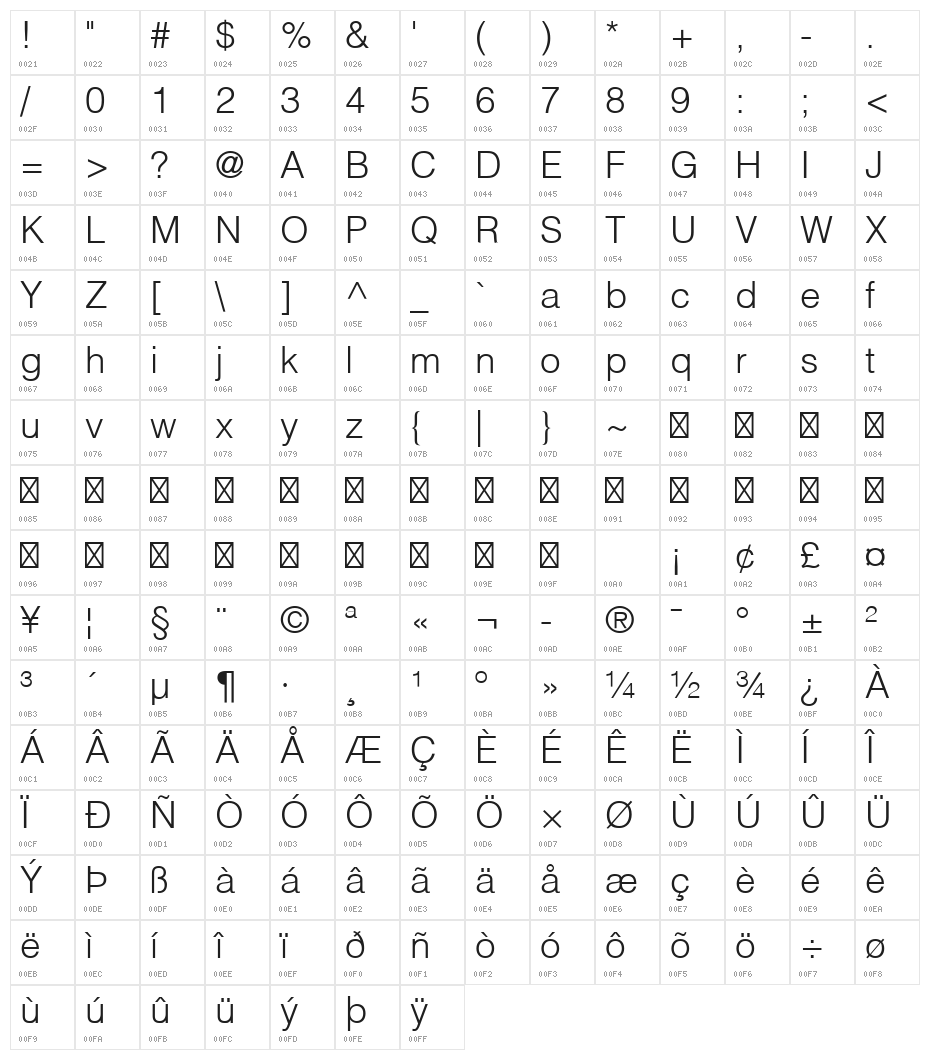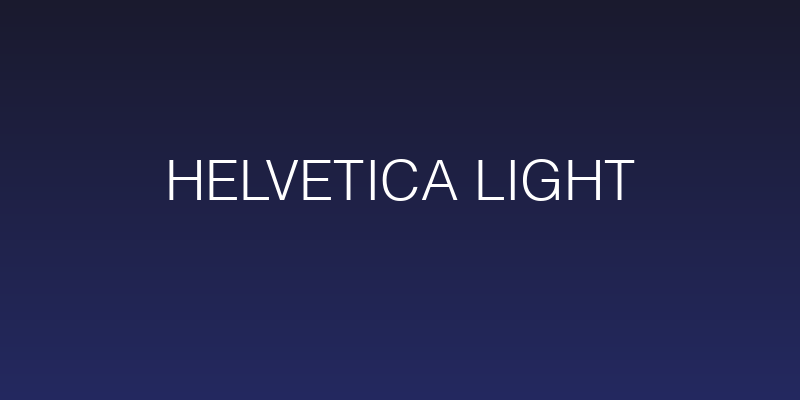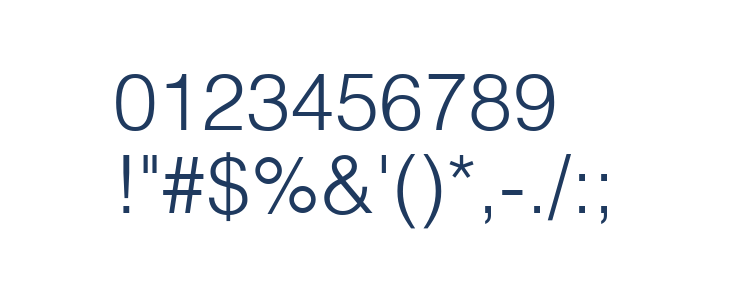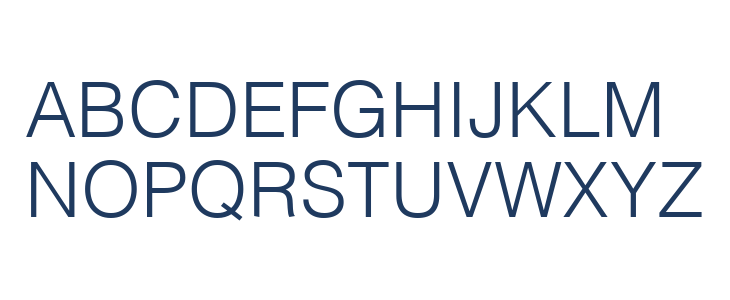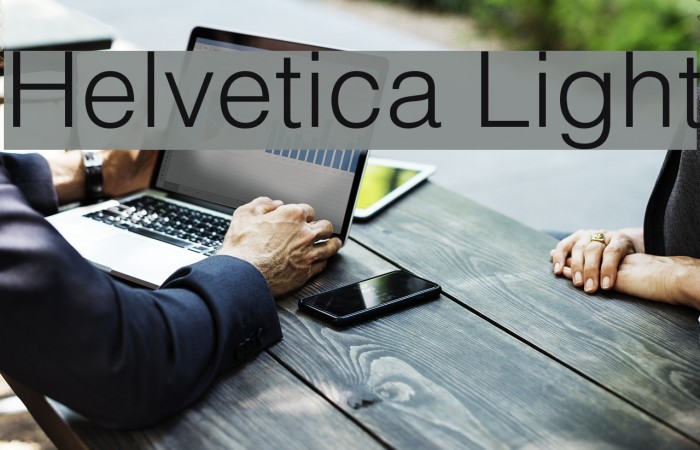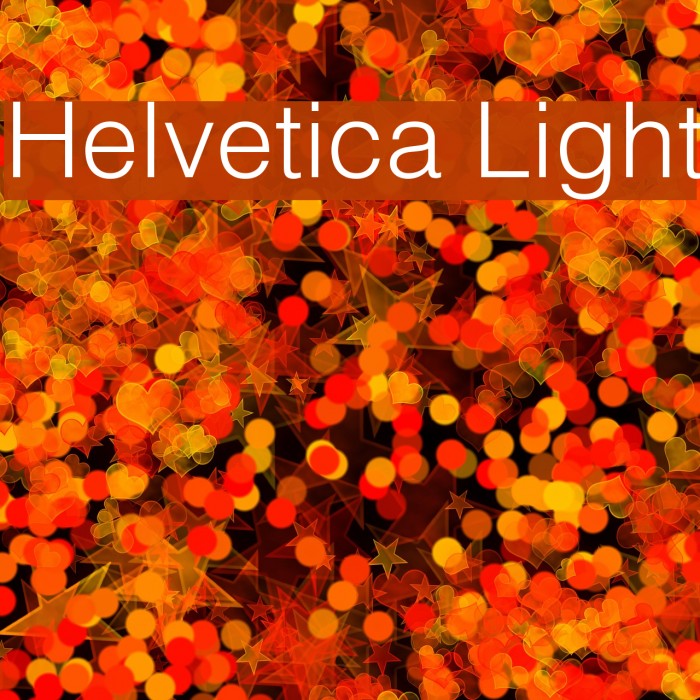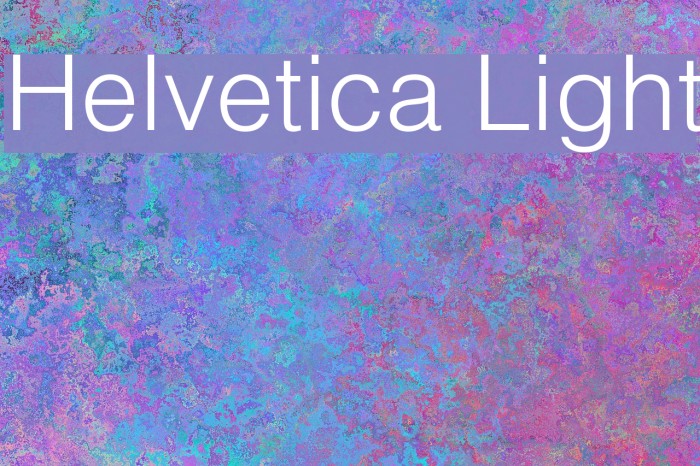
Helvetica Light Font
Helvetica Light Description
This typeface is a classic example of a sans-serif font, characterized by its clean and modern appearance. The letters are evenly spaced with a uniform stroke width, contributing to its legibility and versatility. The design is minimalist, with no decorative elements, making it suitable for a wide range of applications. The uppercase and lowercase letters are well-proportioned, and the numerals are clear and easy to read. Special characters are included, maintaining the font's consistent style. This font is widely used in both digital and print media due to its timeless and professional look.